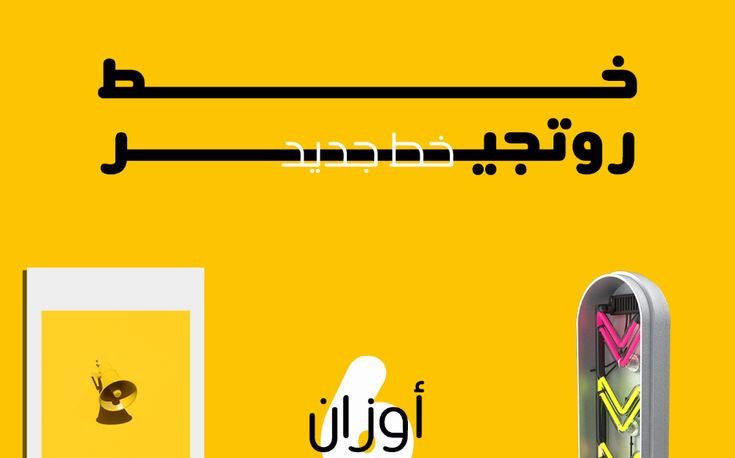
Rotger Arabic Sans Serif Typeface
Download Rotjir (Rutjir), a sleek and versatile bilingual font featuring harmoniously designed Arabic and English scripts with contemporary character—perfect for modern design projects requiring clean, professional typography in a lightweight package (0.256 MB). OTF format with JPG previews.
Rotjir is a thoughtfully crafted typeface that brings together Arabic and Latin scripts in a clean, contemporary design. With its balanced proportions and efficient file size, this font offers designers a versatile tool for creating professional work across all media without compromising on quality or character.
Design Characteristics:
- Clean, contemporary Arabic and English letterforms
- Balanced proportions for excellent readability
- Sleek design with modern appeal
- Versatile character suitable for multiple applications
- Professional yet approachable aesthetic
Arabic Script:
- Complete Arabic character set
- Full support for diacritics and marks
- Proper character connections and positioning
- Contemporary styling across all letters
- Optimized for both text and display sizes
English/Latin Script:
- Coordinated design matching Arabic style
- Complete uppercase and lowercase characters
- Numerals, punctuation, and special characters
- Harmonious weight and proportion with Arabic
- Clean, professional appearance
- Branding: Clean, contemporary brand identities
- Web Design: Modern digital typography
- Print Materials: Brochures, flyers, publications
- Mobile Applications: Sleek interface design
- Corporate Communications: Professional materials
- Social Media: Clean, engaging content
- Packaging: Modern product presentation
- Signage: Professional displays
- Clean Design: Sleek, contemporary letterforms
- Coordinated Scripts: Harmonious Arabic and English
- Professional Quality: High-caliber font for commercial use
- Time-Saving: One font for both languages—no mixing required
- Versatile Application: Perfect for any modern project
Key Features of Rotjir Font:
- Clean, contemporary Arabic and English designs
- Complete character sets for both scripts
- Sleek, professional aesthetic
- Perfect for modern, professional design projects
- Brand and identity designers
- Web and digital designers
- Corporate communications professionals
- Print and publication designers
- Anyone needing clean, efficient bilingual typography